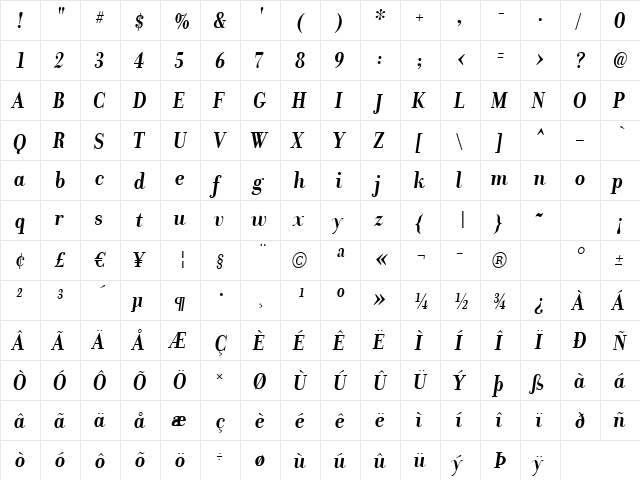
Donatora Display BoldItalic Font Preview
Design Context for Donatora Display Typeface
Donatora Display is built around its visual character rather than neutral utility — its distinctive forms are designed to make an impression at display sizes. Its italic angle brings a sense of urgency and motion to the letterforms. The heavy weight commands attention and anchors typographic hierarchies.
Font Pairing: Pair with a clean neutral sans-serif for body copy to let Donatora Display's character lead without overwhelming the composition.
Pro Tip: Use Donatora Display exclusively at display sizes — it was designed to be seen, not read at length. Let a neutral companion handle body copy.